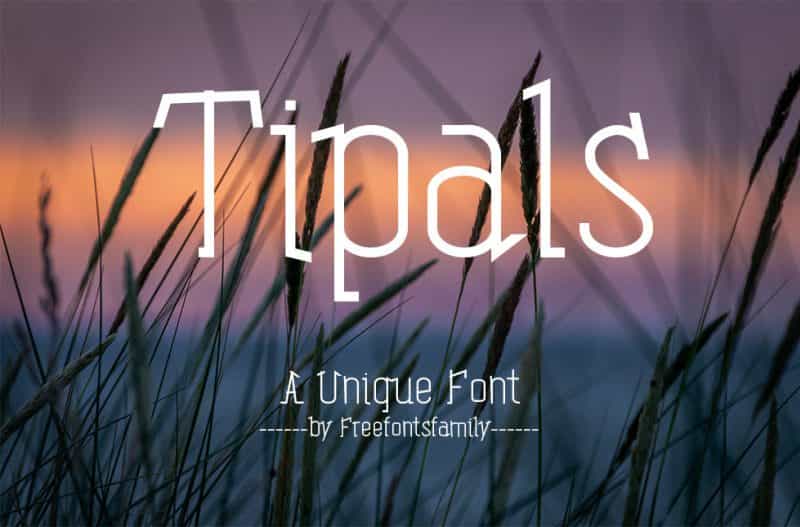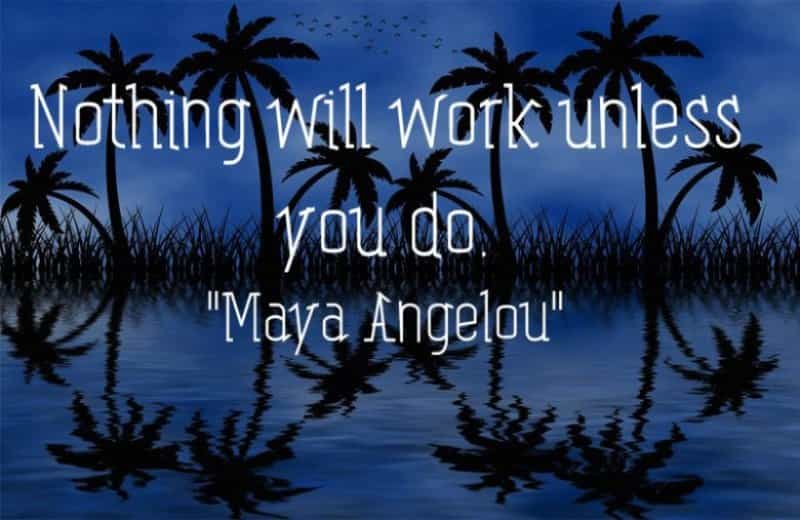
Discover Tipals Font, part of the Serif collection—a versatile and unique font perfect for adding a personal touch to your projects. Download it for free and enjoy crafting designs with style, from invitations to social media posts. This font is available exclusively for personal use, giving you the freedom to create without limits. Unlock your creativity with Tipals Font today!
Tiplas font that’s meant for all designers’ requirement is here. This font is perfect for the design of any kind of historical, quotations or books cover. This font can be applied in designing to make your designs beautiful and one-of-a-kind. Besides, it is also applicable in branding and can elevate your graphic design projects to the next level.